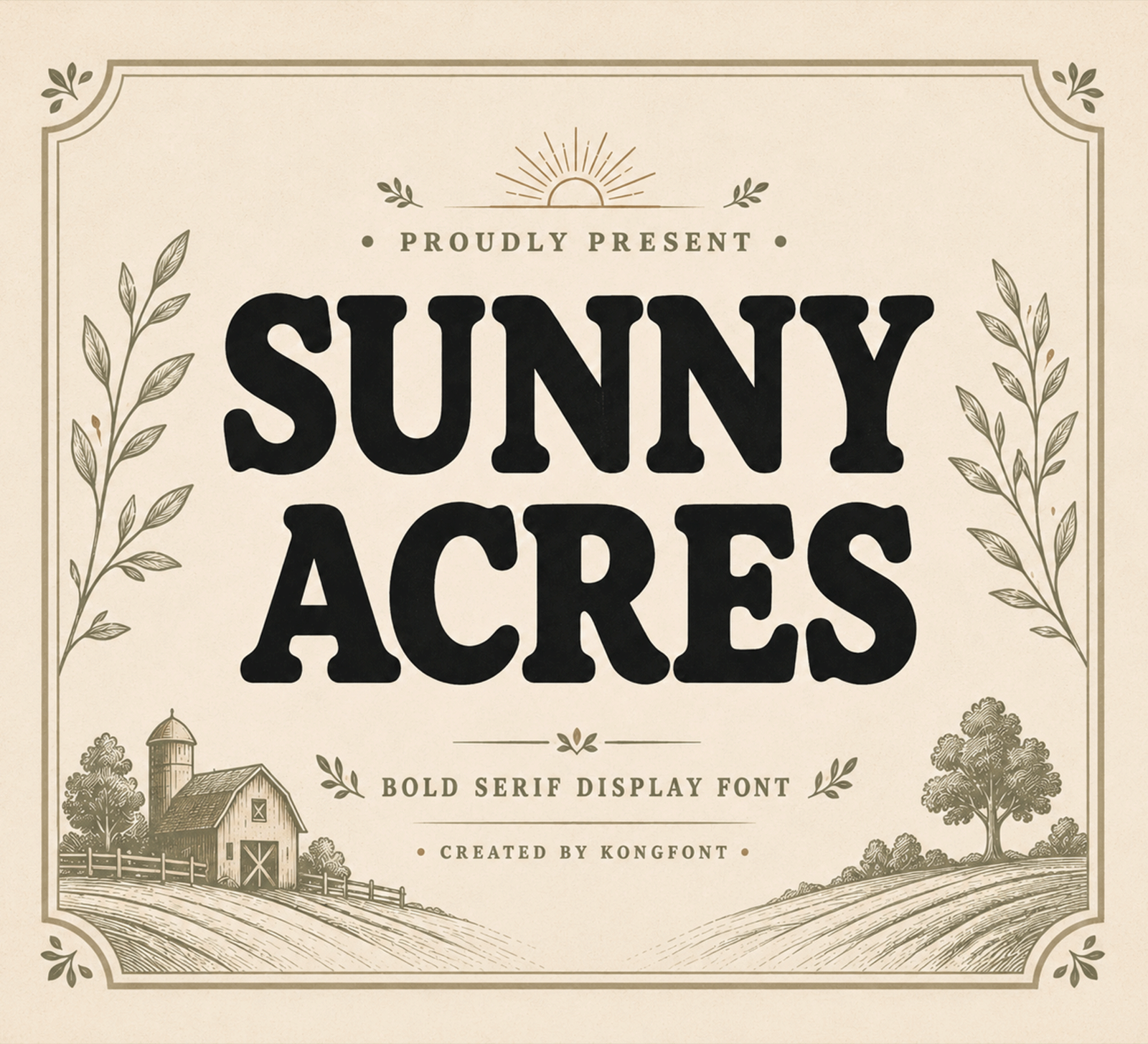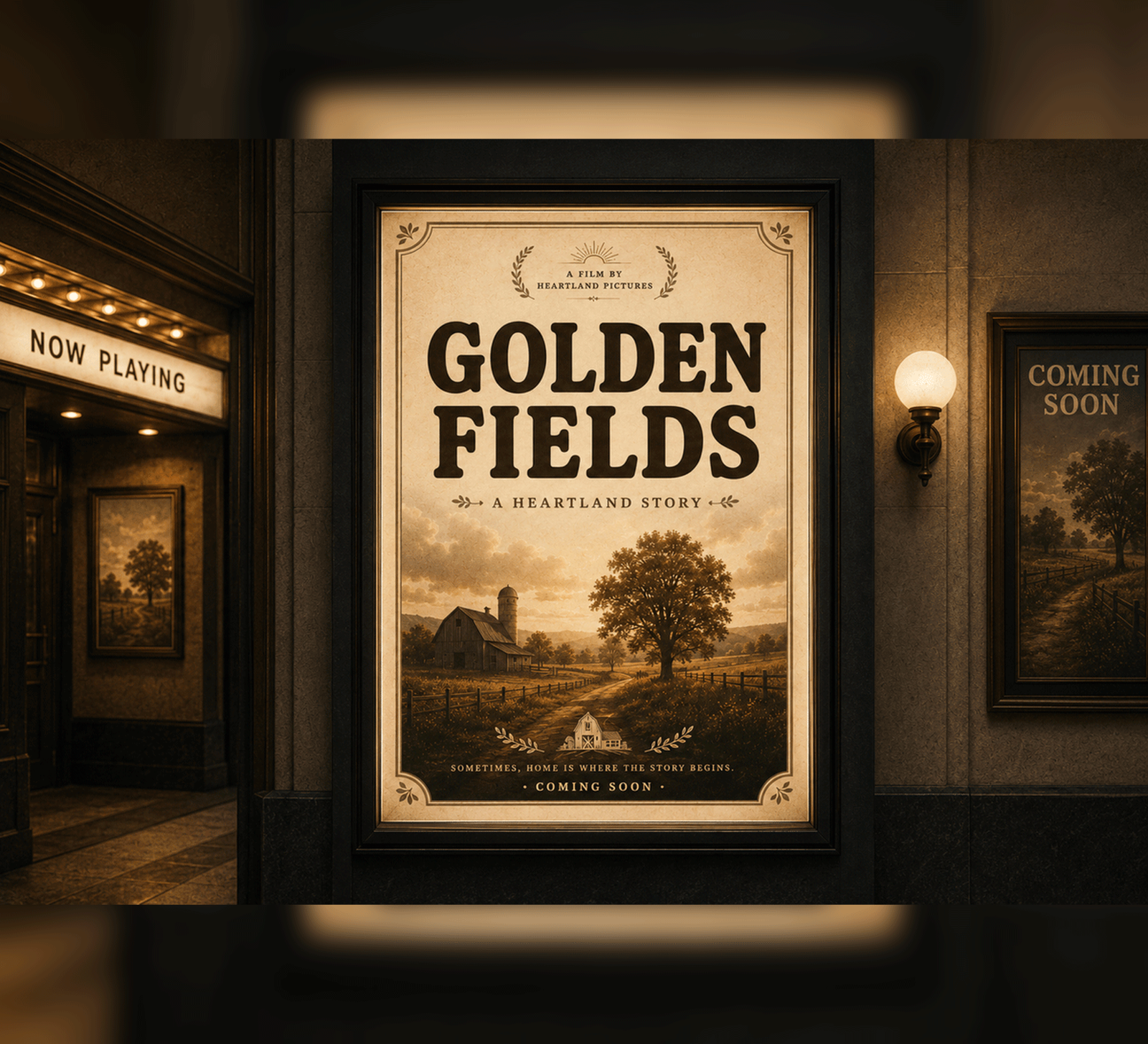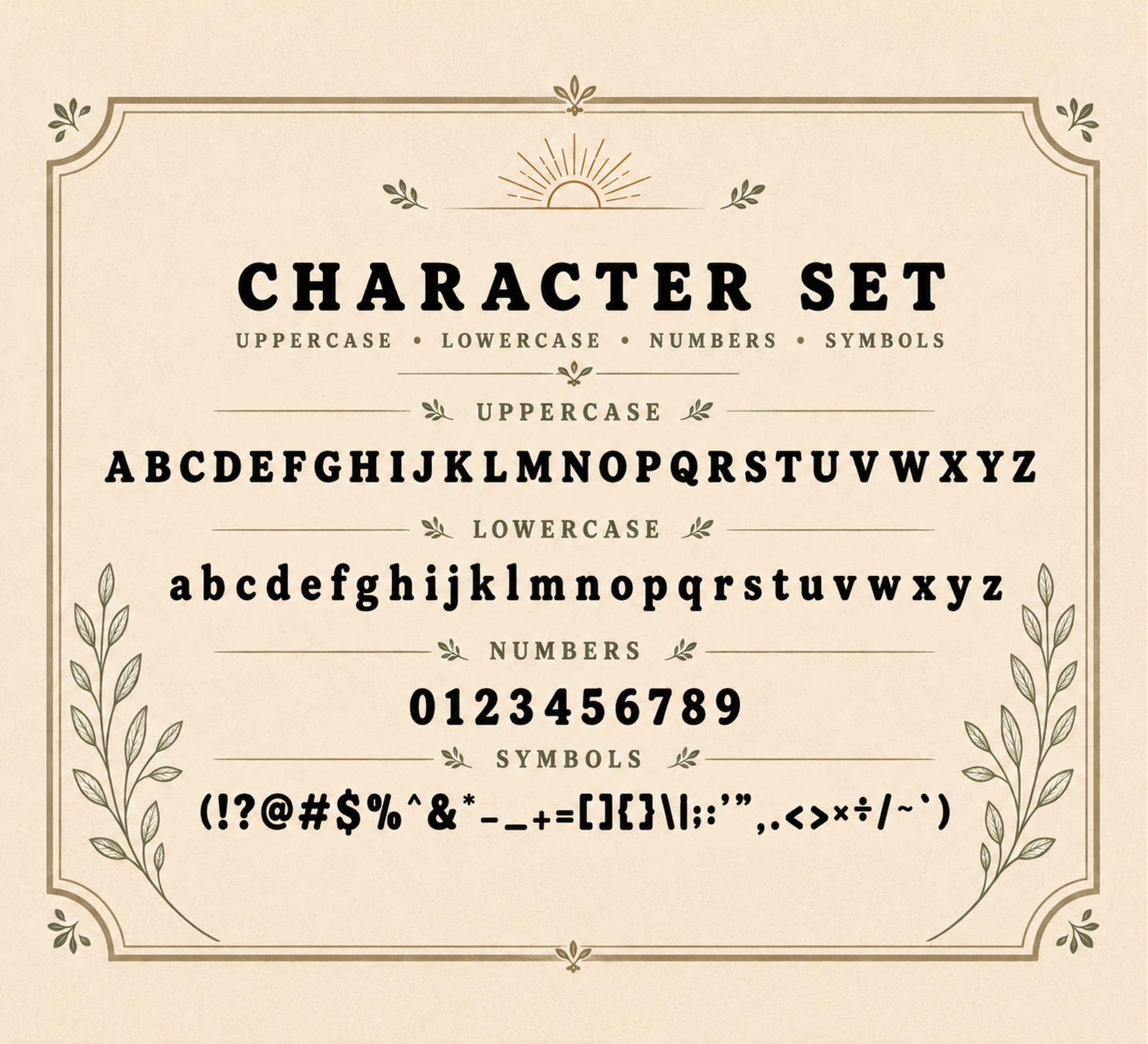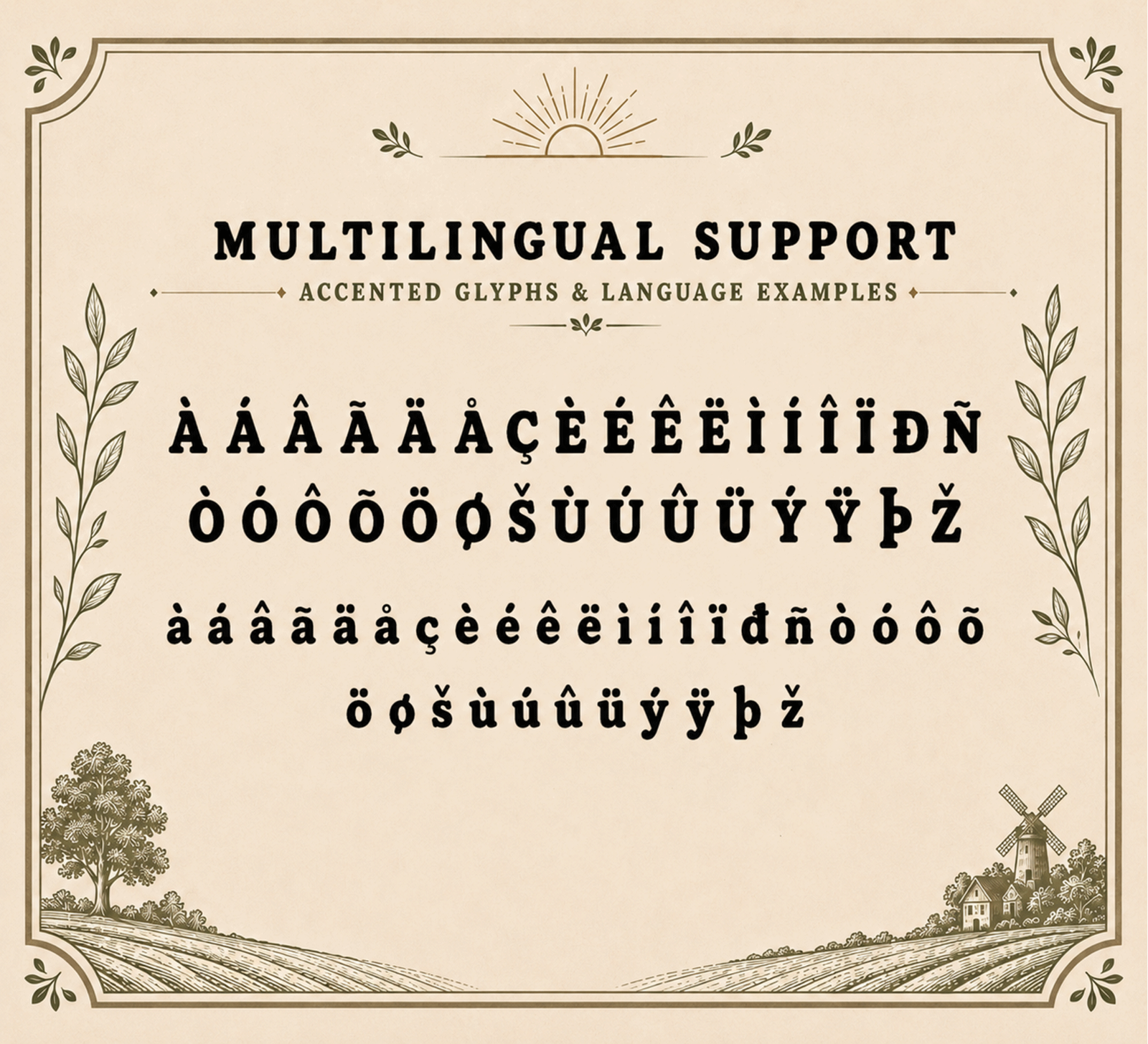
Sunny Acres is a warm and bold serif font with a vintage-inspired look and a clean modern feel. Its soft curves and strong letterforms give your designs a friendly, handcrafted, and timeless personality.
• Café branding
• Organic products
• Boutique businesses
• Packaging
• Home décor
• Market signs
• Logos
• Product labels
• Social media designs